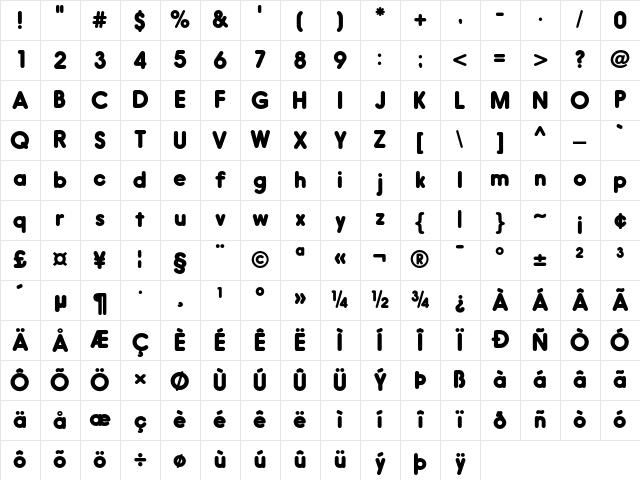
Complete Hiruko Pro Black glyph index. Displaying only characters natively supported by Hiruko Pro Black font.
Hiruko Pro is a composed and adaptable typeface that performs quietly and consistently across a wide range of design contexts.
Who designed the Hiruko Pro Black font?